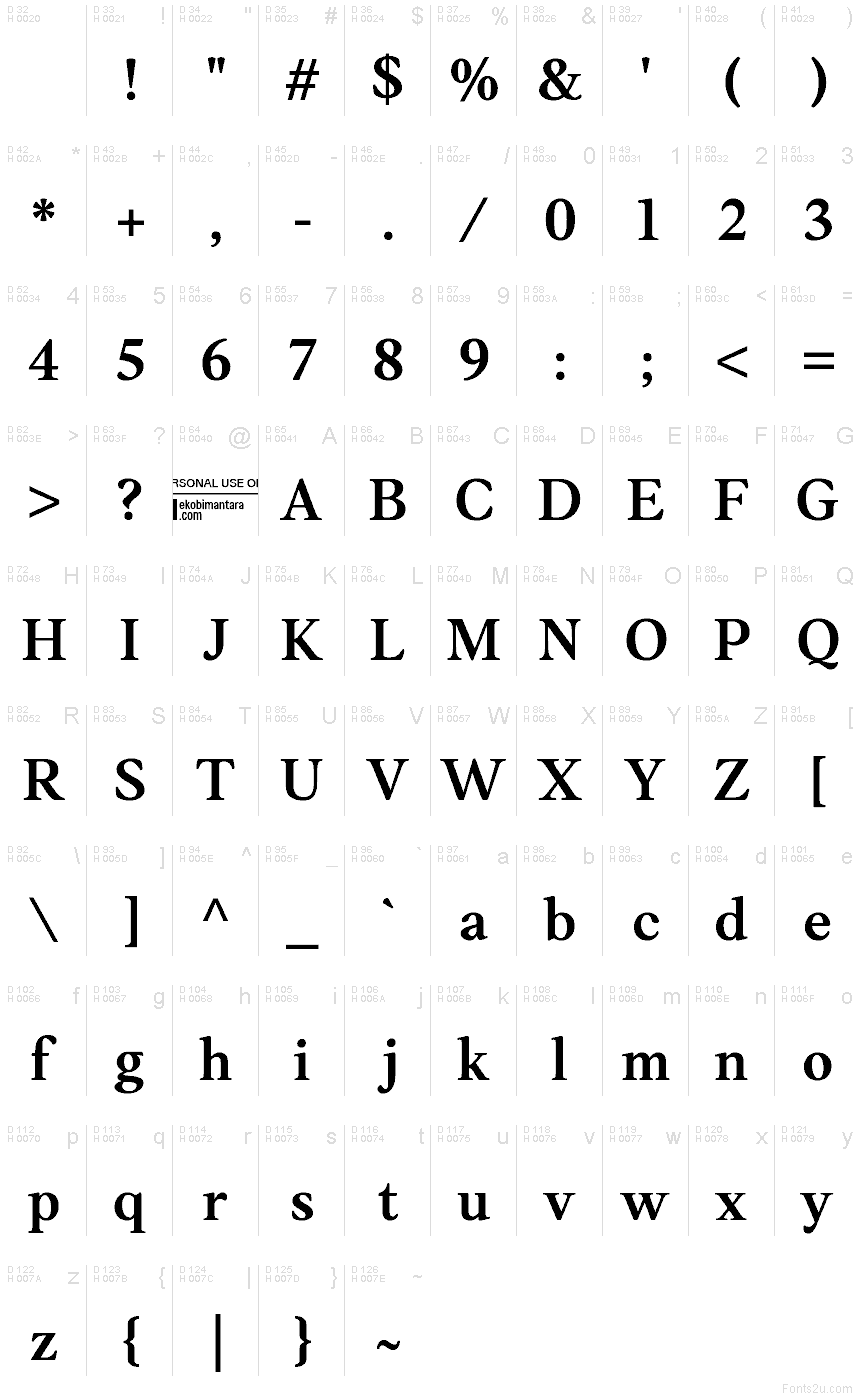
Anko Trial SemiBold
Anko SemiBold font by Eko Bimantara is a free semibold contemporary serif font. It solves that tricky brief between refined and robust: crisp wedge serifs anchor the forms while round, inky bowls keep them approachable. The Anko family rhythm is steady and confident, with generous curves, tight joins, and a gentle contrast that holds up on screen and in print without feeling brittle.
Using Anko SemiBold, headlines snap into focus and short paragraphs carry a rich editorial tone. It shines on magazine mastheads, boutique branding, book covers, packaging, posters, and website hero copy. This free font loves generous leading and a touch of tracking at display sizes; pair it with Anko Regular for body text to keep the voice cohesive.